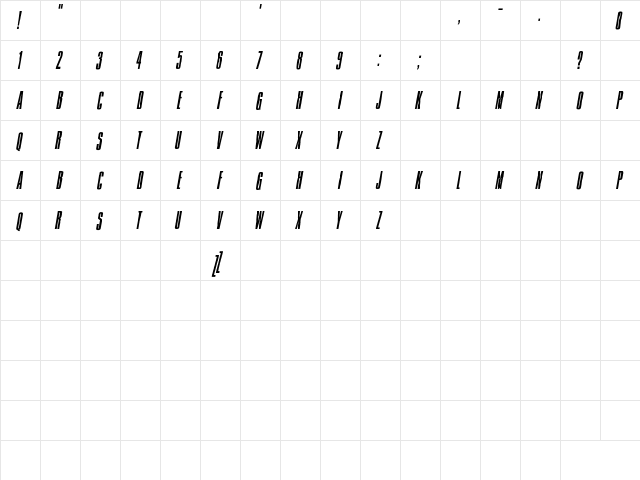
Jam Pact Regular
| Foundry | High-Logic |
| Designer | High-Logic - Erwin Denissen 1999 |
Design Context for Jam Pact Typeface
Jam Pact is a composed and adaptable typeface that performs quietly and consistently across a wide range of design contexts.